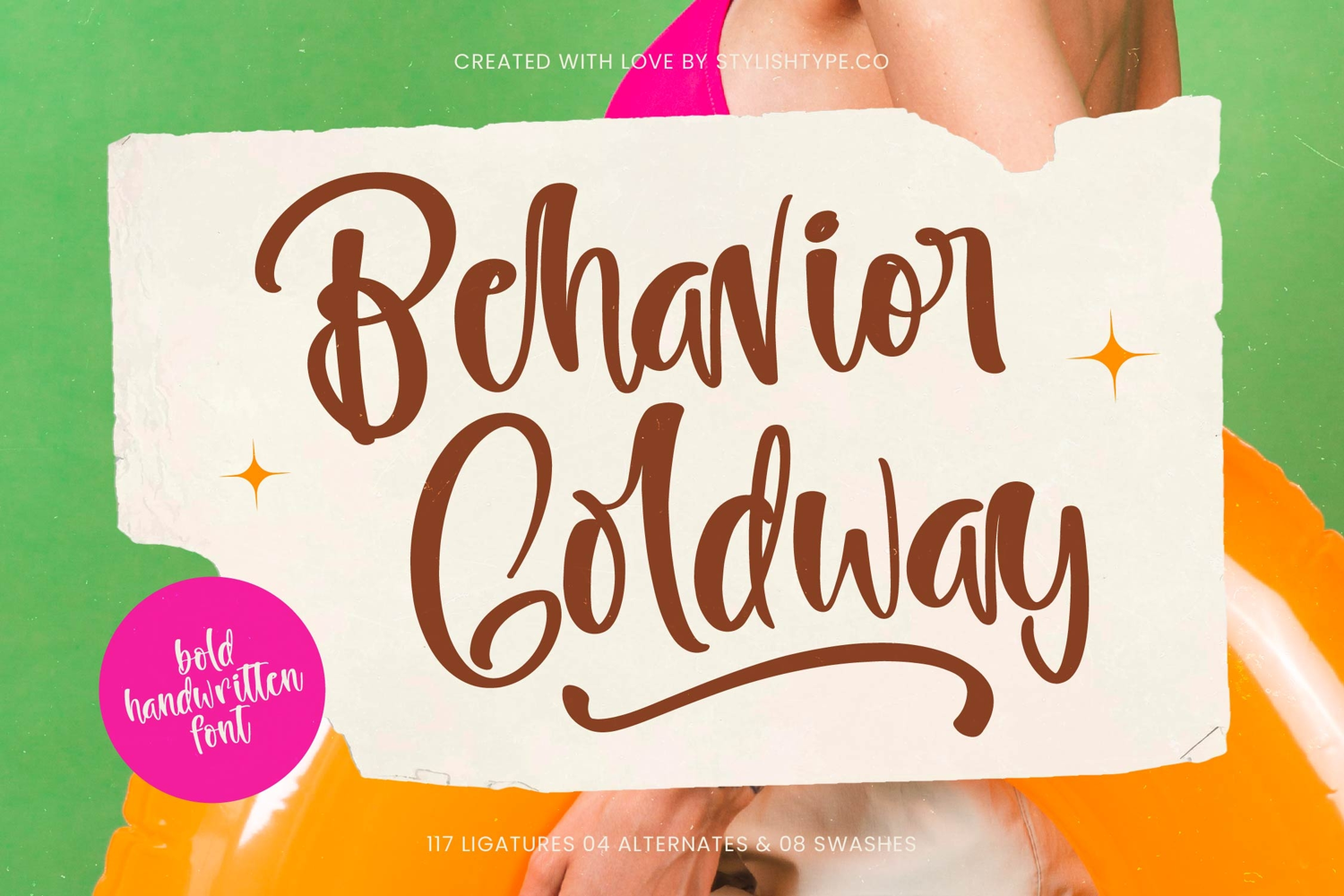
Behavior Goldway - Bold Handwritten Font
Behavior Goldway
Behavior Goldway Italic
Capture immediate attention with the vibrant charm of Behavior Goldway - Bold Handwritten Font. This exceptional typeface masterfully blends the organic warmth of authentic handwriting with a distinct, confident boldness. Its expressive strokes and natural flow create an instantly appealing aesthetic, perfect for designs that demand personality and flair. Experience a font that speaks volumes with its inherent energy and captivating presence.